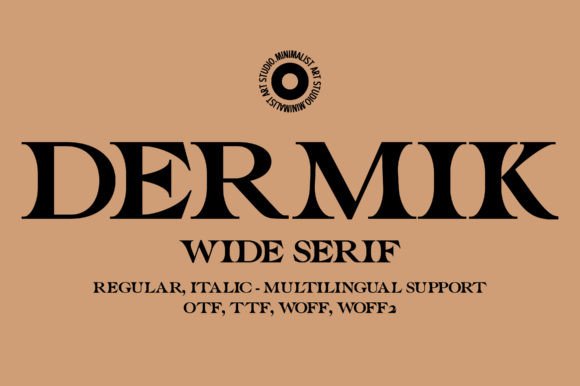
Unleash the enchanting beauty of Dermik, a serif font that radiates luxury and elegance, transforming your creative projects into captivating masterpieces. Its exquisite design and precise craftsmanship present over 520 glyphs, opening doors to boundless creativity. Embrace the versatility of Dermik, a font that seamlessly adapts to a myriad of projects, from sophisticated logos to alluring print materials. Its multi-lingual capabilities make it a passport to global recognition, transcending language barriers and captivating audiences worldwide. Dermik is the ultimate choice for designers seeking a font that embodies timeless style and sophistication, leaving an indelible mark on every visual creation.
Step into the world of luxury and refinement with Dermik, a font that elevates your designs to new heights of sophistication. Its clean lines, elegant curves, and meticulously crafted details evoke a sense of timeless beauty that will captivate your audience. Whether you're crafting a striking logo, designing captivating marketing materials, or creating elegant invitations, Dermik adds a touch of exclusivity and allure that sets your work apart.
Immerse yourself in a world of creative possibilities with Dermik, a font that empowers you to express your unique voice. Its versatility knows no bounds, adapting seamlessly to a variety of projects and styles. Unleash your imagination and explore the endless design opportunities that await you. From classic and timeless to modern and edgy, Dermik offers a kaleidoscope of options to suit your every creative whim.